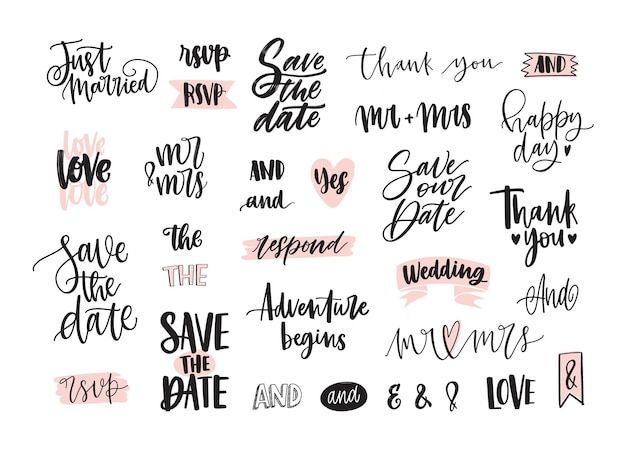
Wedding
Set of creative wedding lettering or inscriptions written with decorative calligraphic font. Bundle of phrases, words, ampersands decorated with cute romantic elements. Hand drawn vector illustration